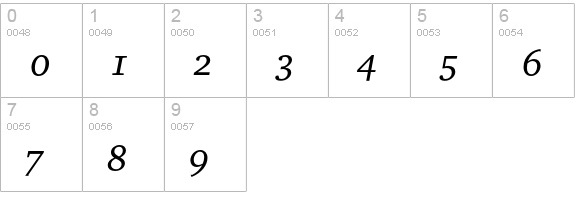
Charter Italic Alternate Font Details
Charter Italic Alternate is a distinctive, italic variant in the Charter typeface family \xE2\x80\x94 well suited to design and typography projects.
Charter Italic Alternate font is a sophisticated and elegant typeface that exudes style and versatility. Its sleek curves and graceful letterforms make it a perfect choice for projects that require a touch of class and sophistication. The italicized design adds a sense of dynamism and movement to your text, making it stand out from the crowd. What makes Charter Italic Alternate font even more appealing is that it is available free of charge for download at FontsMarket.com. This means you can elevate your designs without breaking the bank, making it a fantastic option for both personal and commercial projects. Whether you're creating invitations, branding materials, or editorial layouts, Charter Italic Alternate font is sure to make a lasting impression. Download it today and add a touch of elegance to your next project!